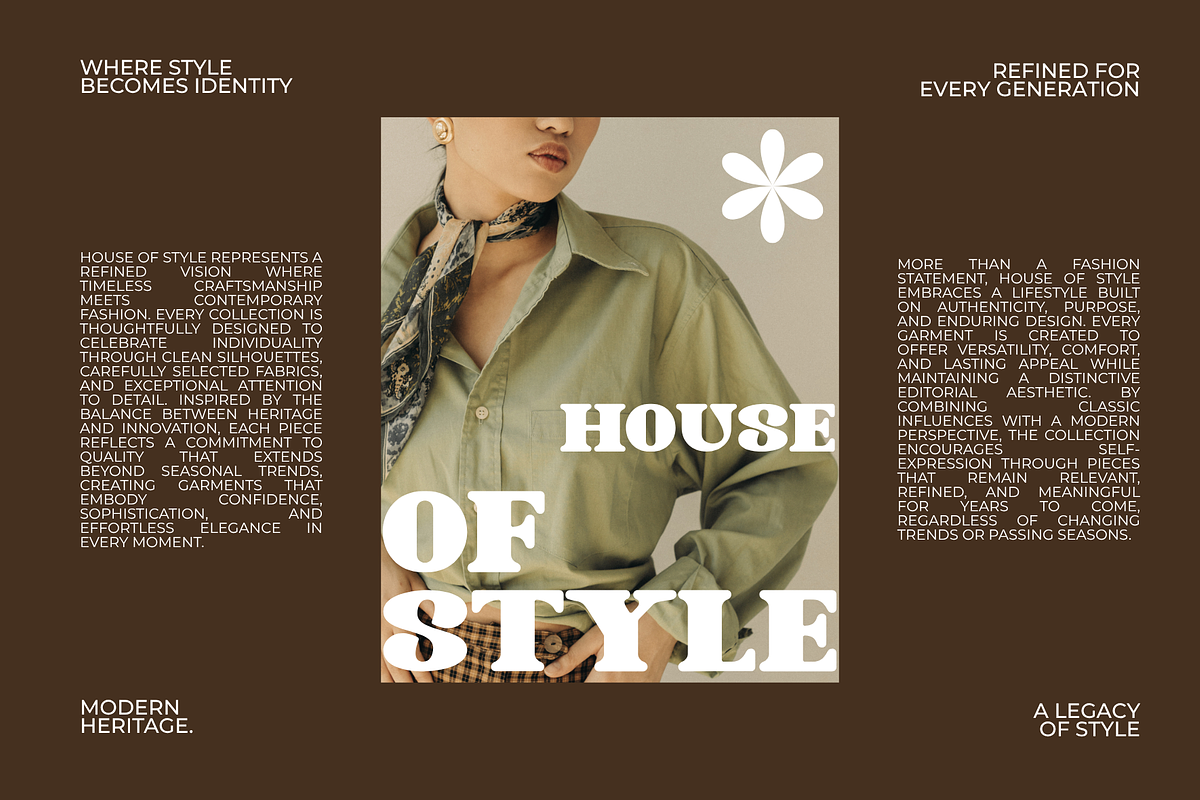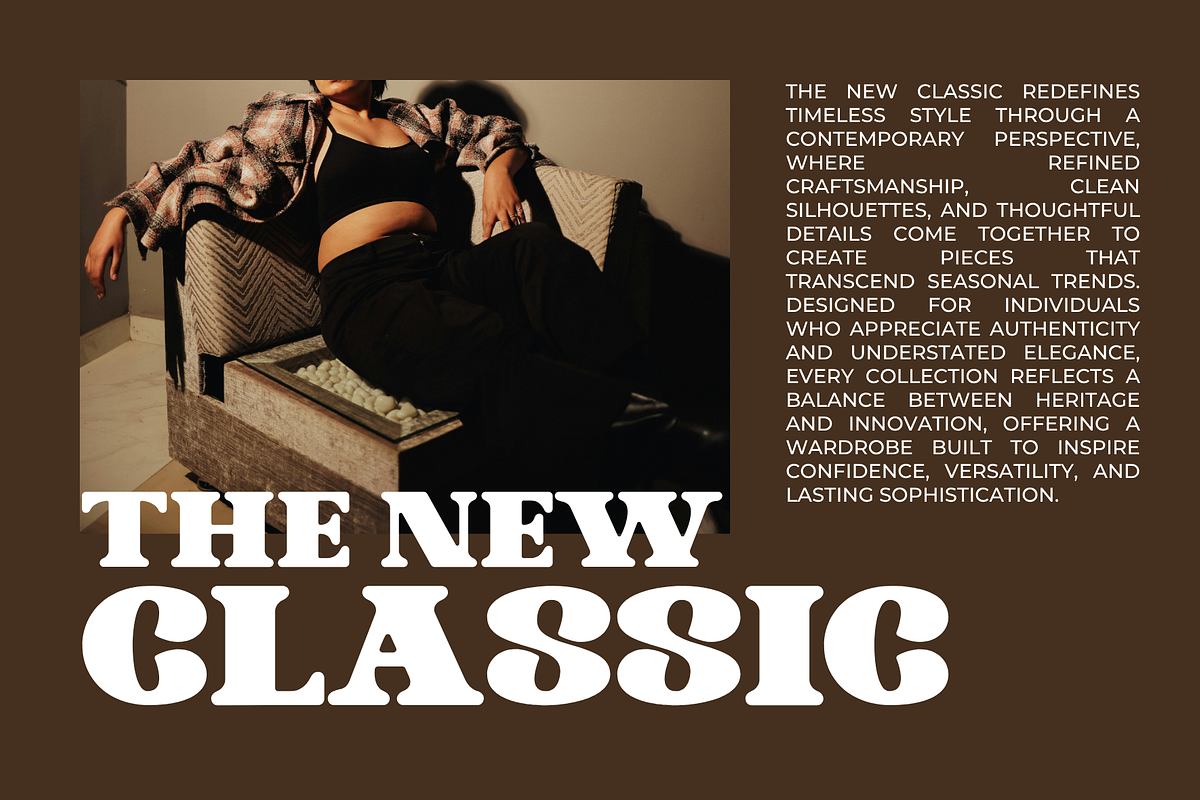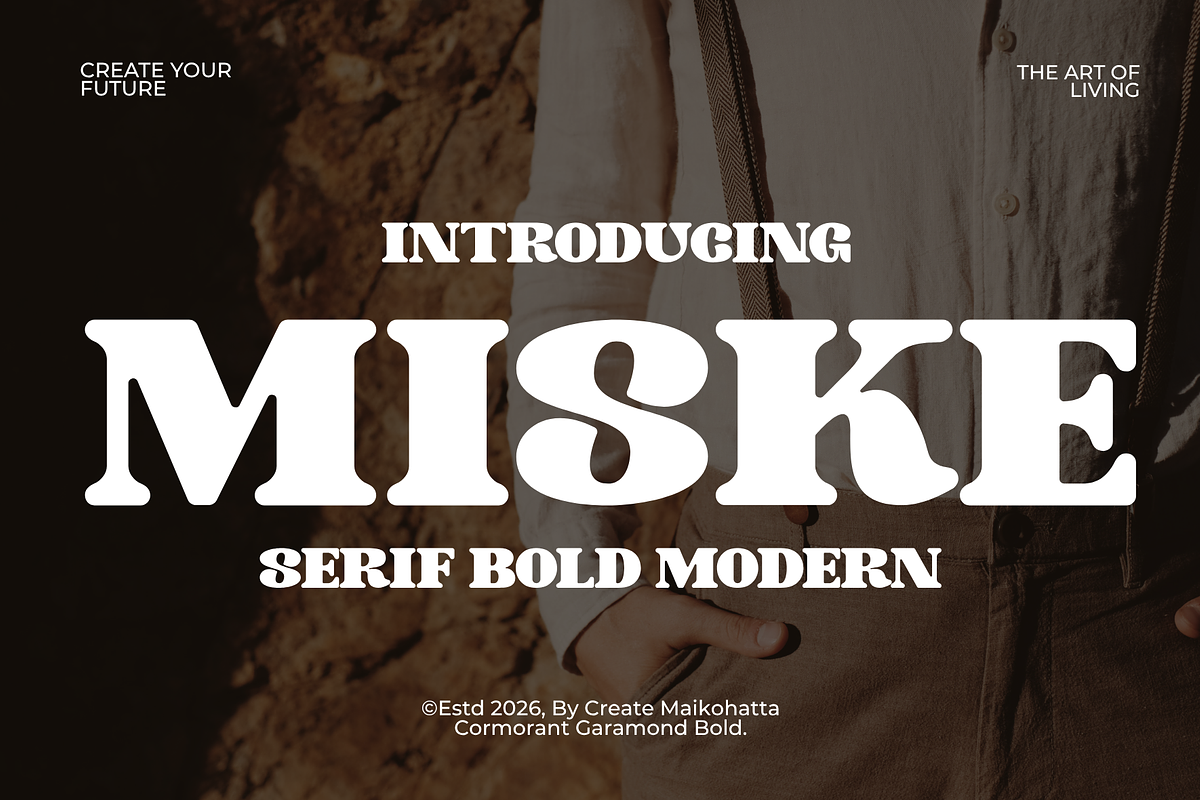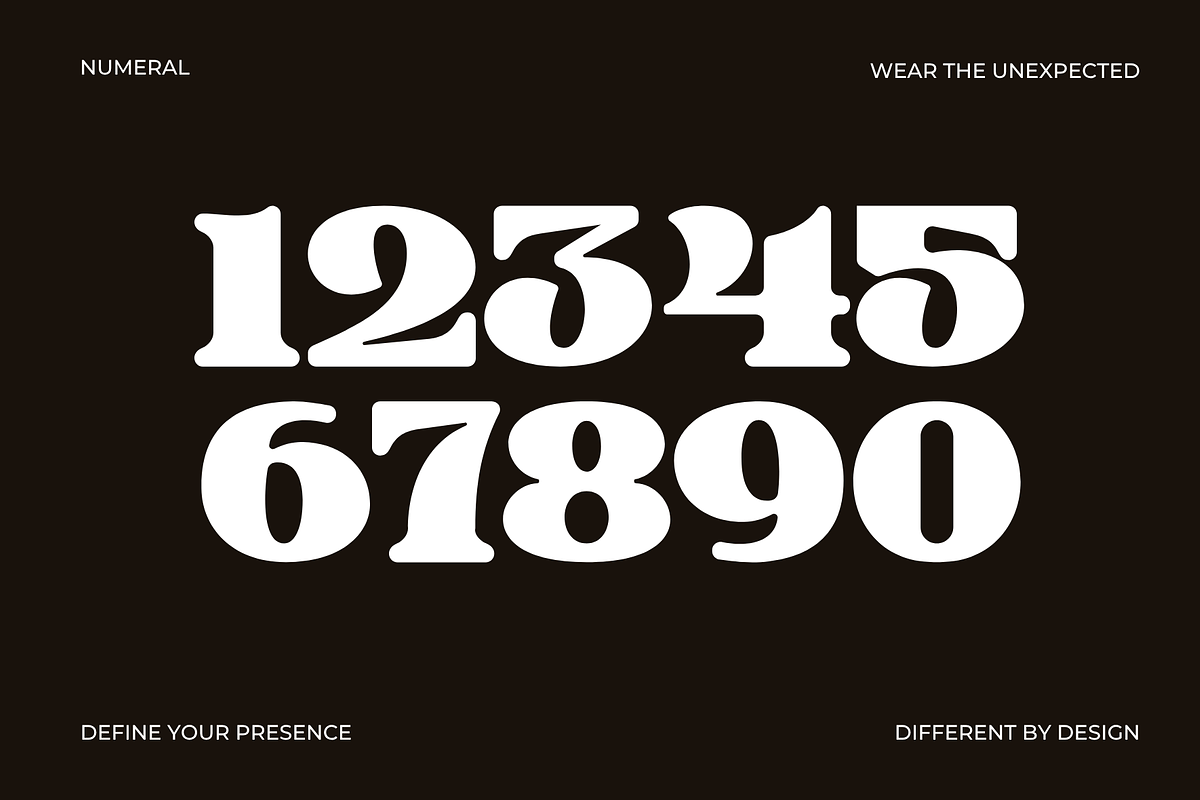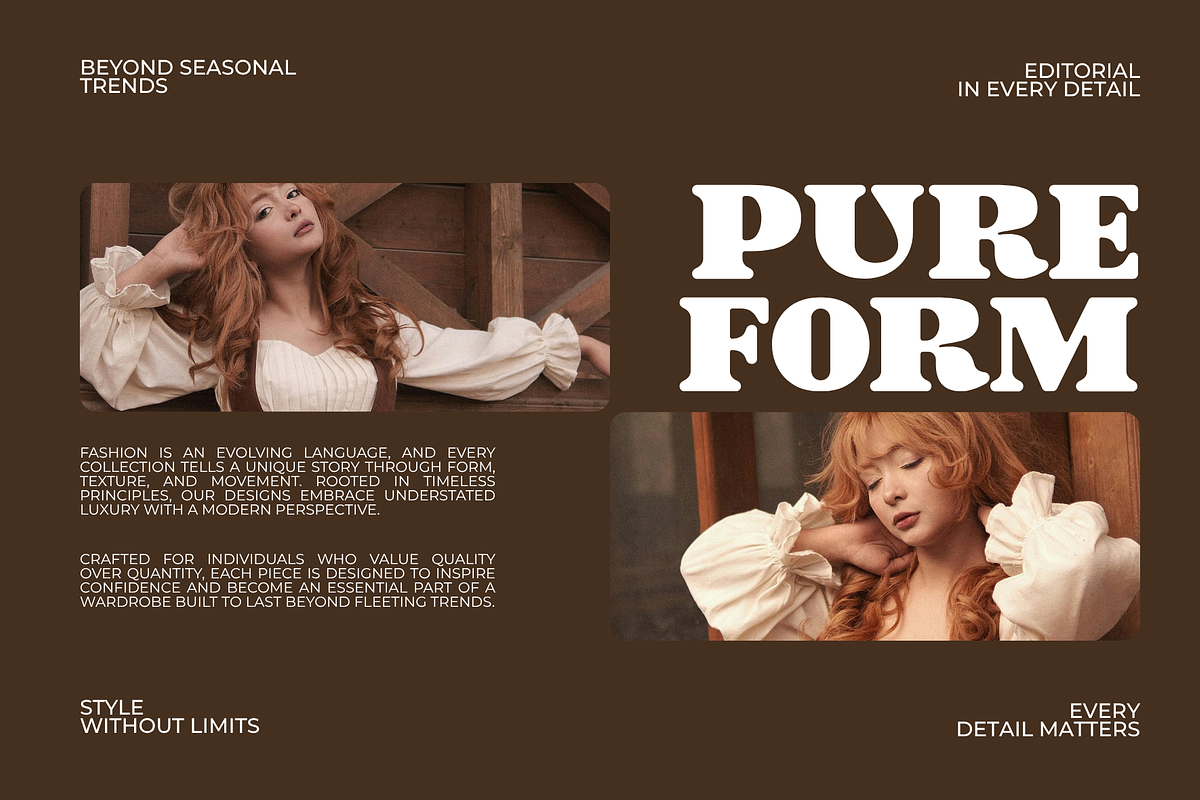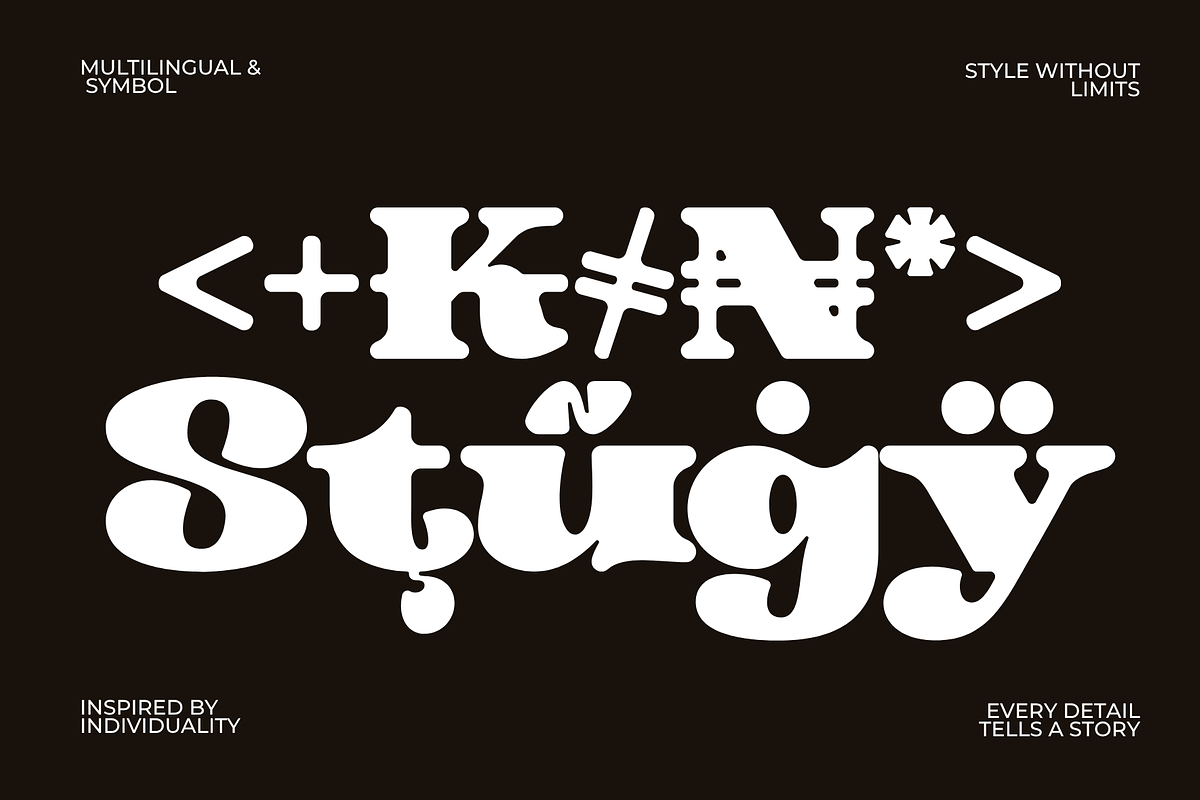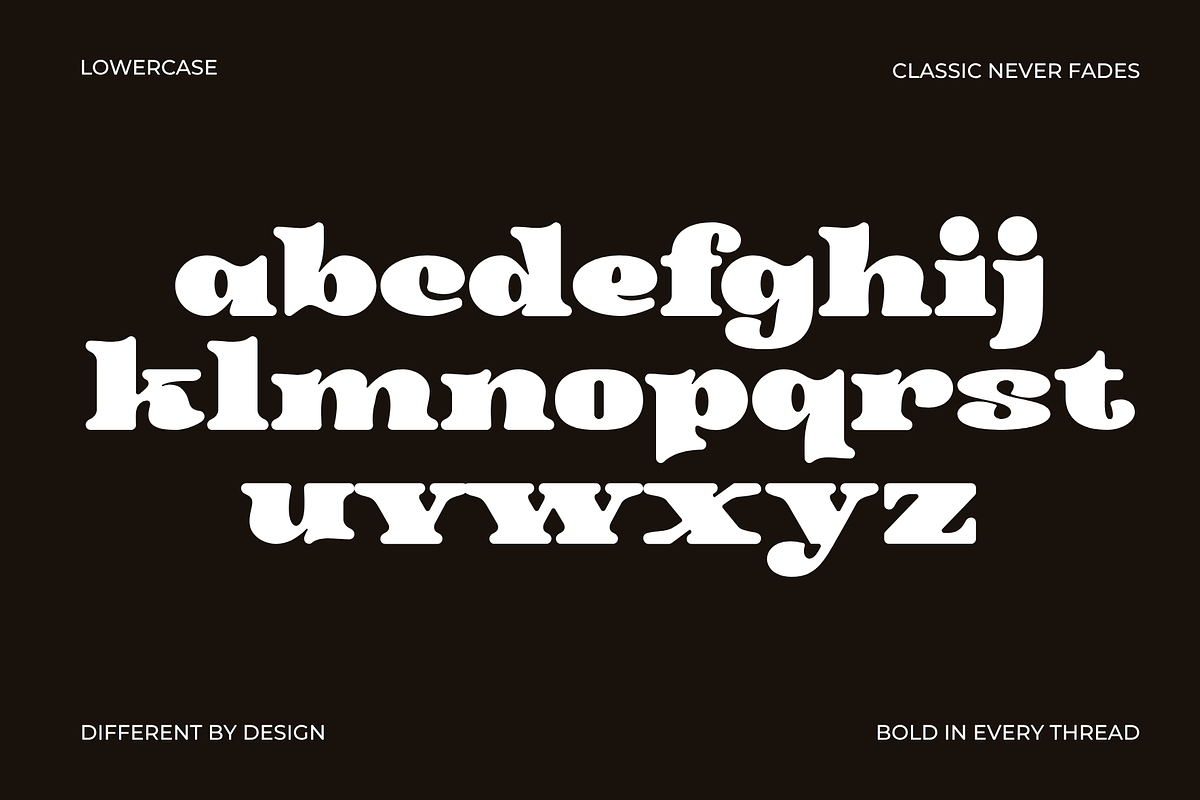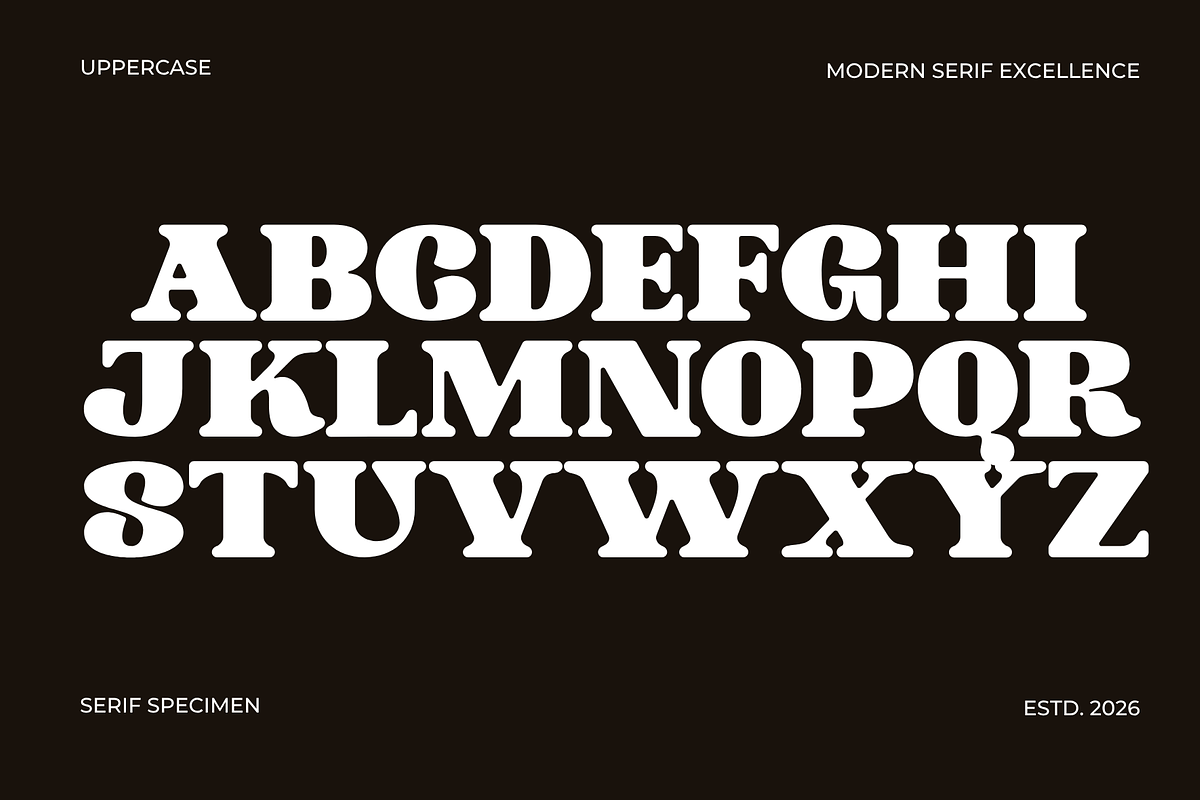
Miske – Modern Bold Serif
Introducing our new product Miske – Modern Bold Serif
Miske Modern Bold Serif, a striking display typeface that blends timeless serif elegance with bold contemporary styling. Designed with powerful curves, soft edges, and confident proportions, Miske creates a luxurious and memorable impression for any creative project.
Its bold letterforms make it perfect for eye-catching headlines while maintaining refined details that elevate branding and editorial designs. Whether you're creating a fashion identity, premium packaging, magazine layouts, or sophisticated logos, Miske delivers a strong visual presence with effortless elegance.